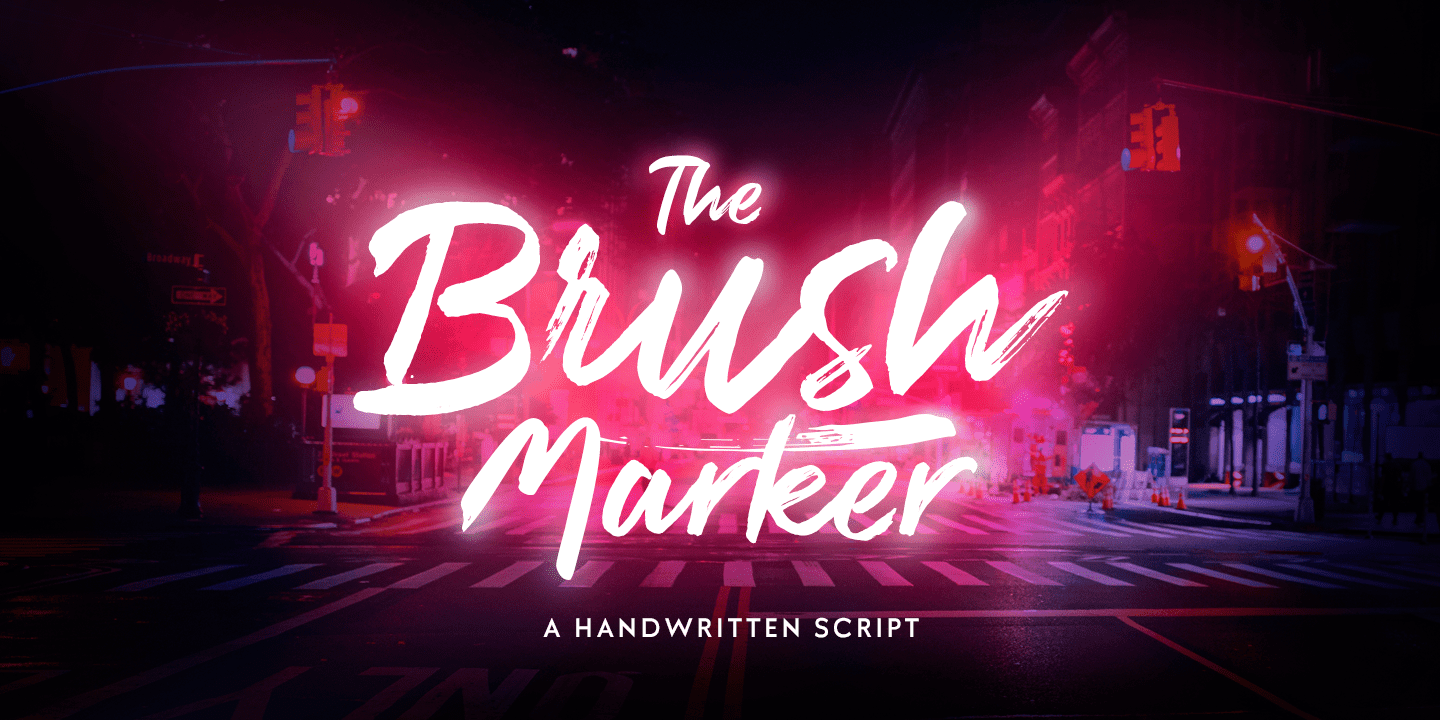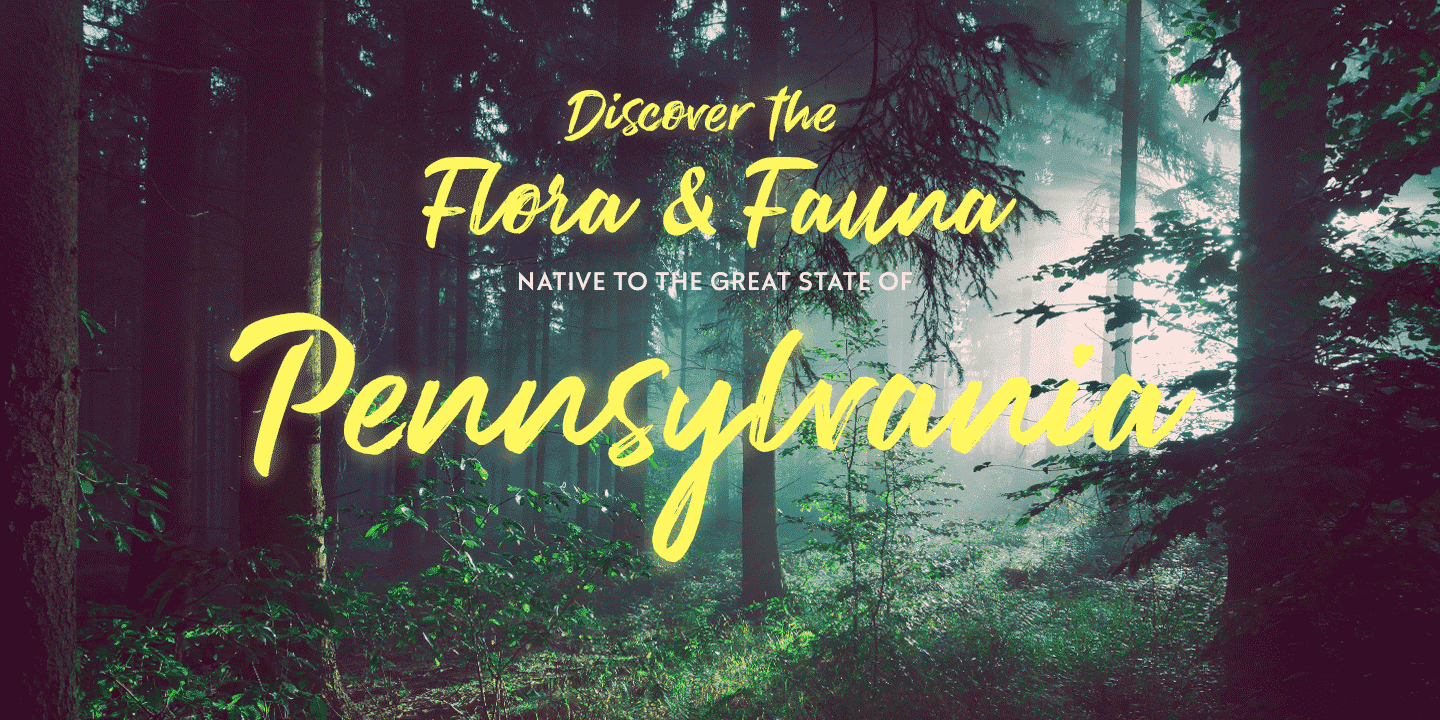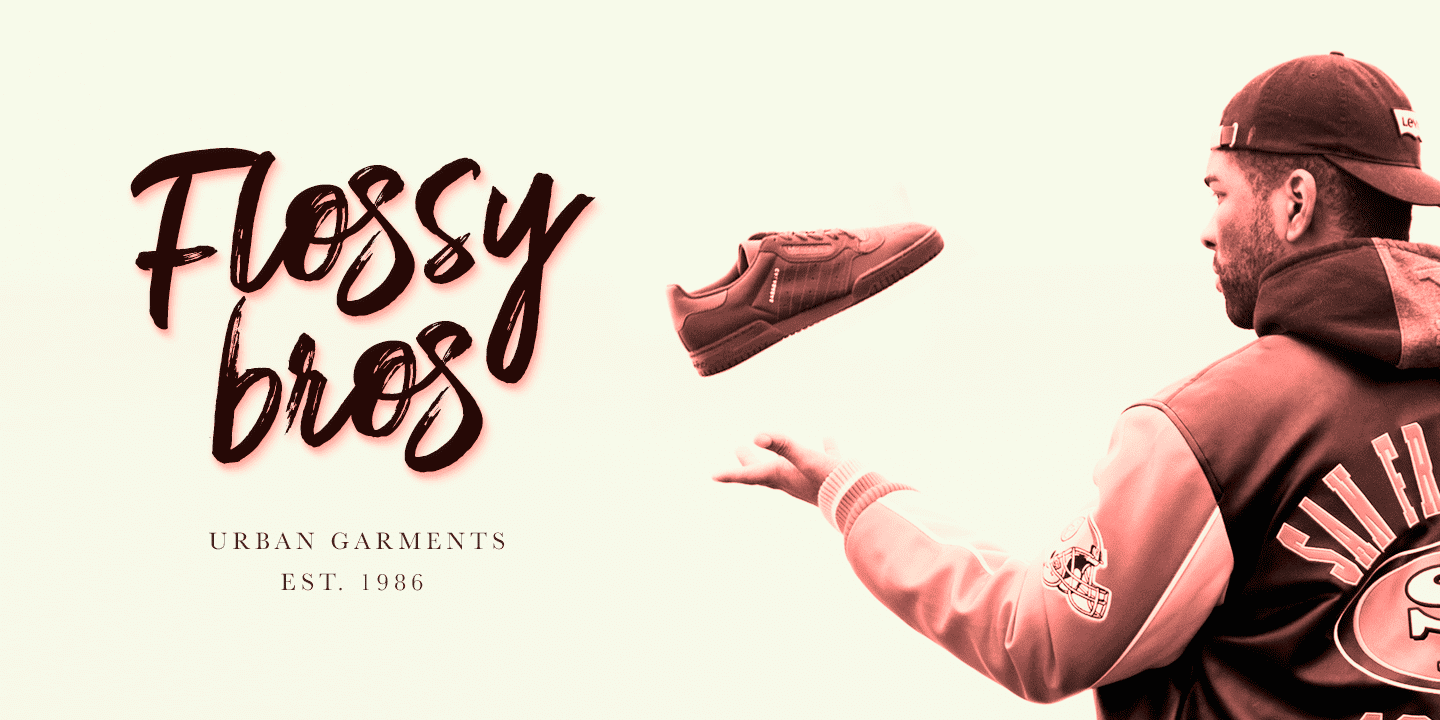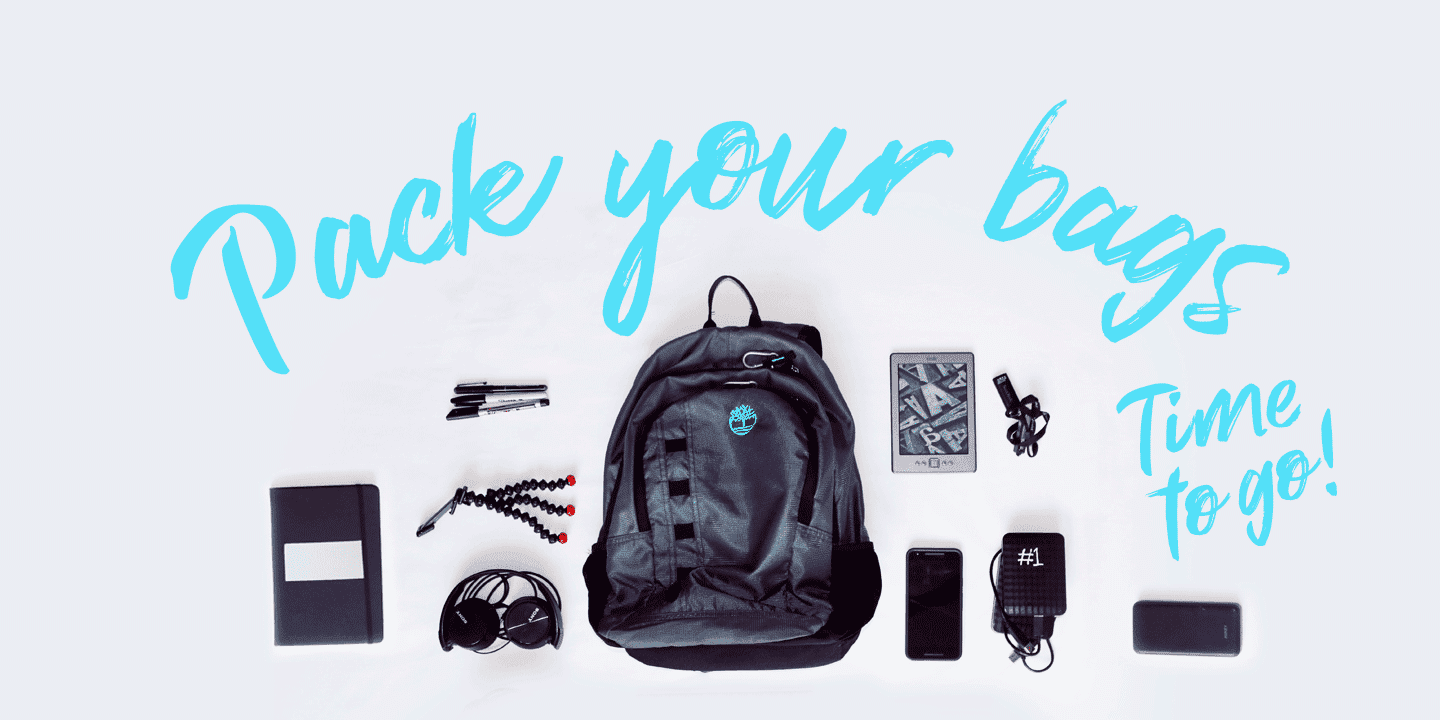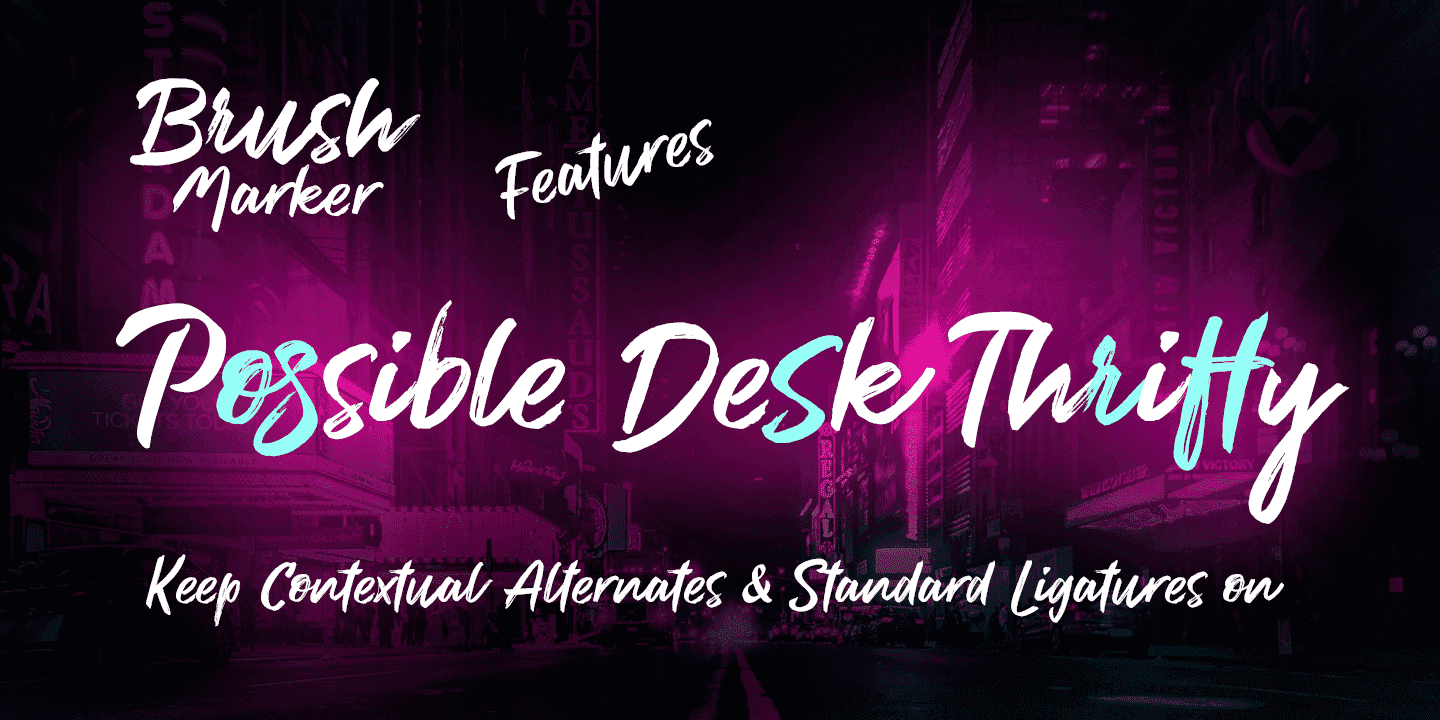
Brush Marker is packed with automatic Contextual Alternates and Standard Ligatures that keep the text vivid.
OpenType features: Ligatures, Contextual Alternates